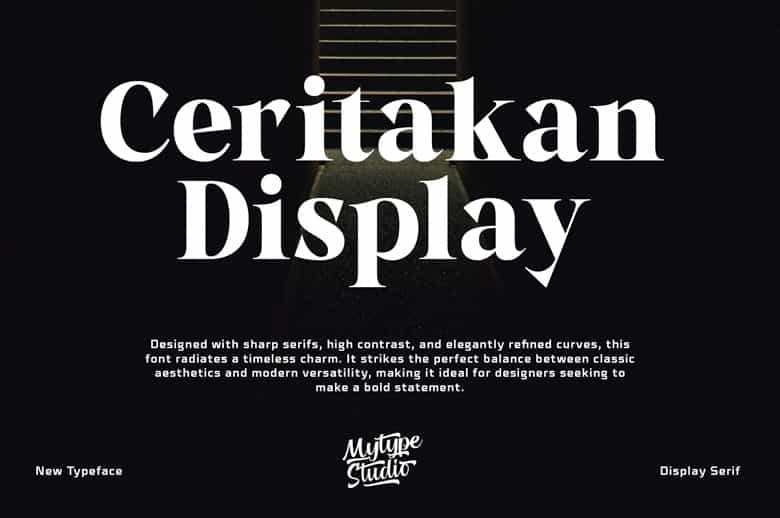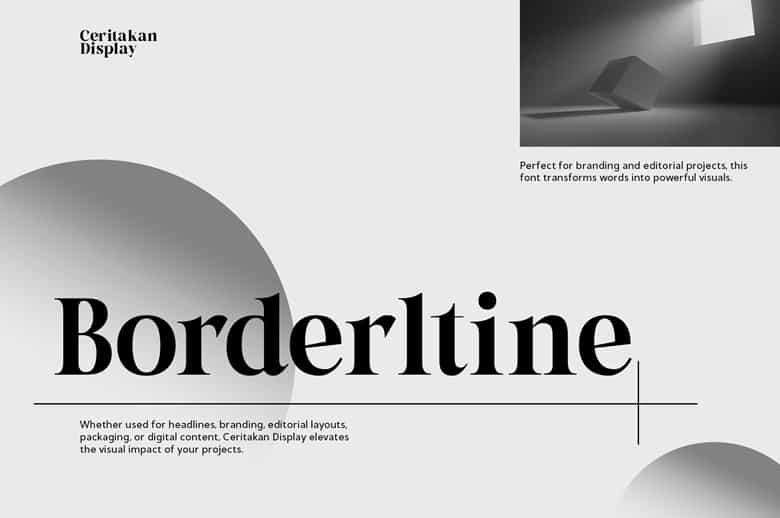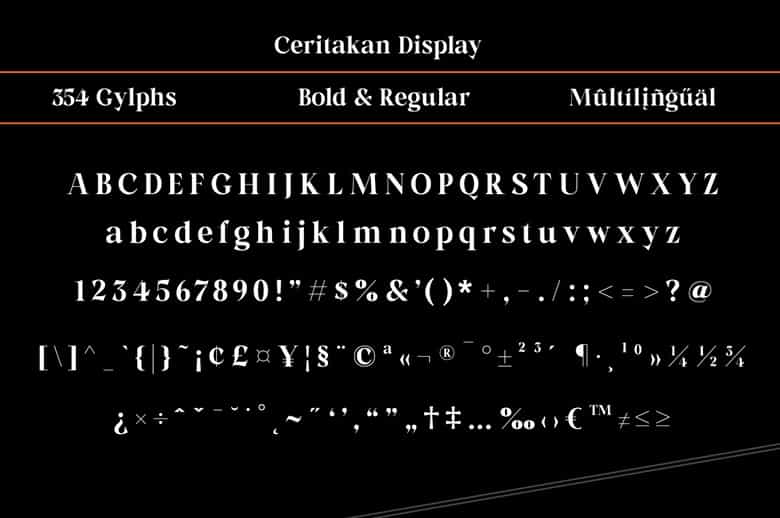
Ceritakan display is a visually appealing font classified as sharp-serif, high-contrast font underlined by fine curves to produce a contemporary and classical pull appearance. Such versatility makes it suitable for tasks requiring some class and aesthetic appeal on the surface. Suitable for corporate identity, newspaper, magazines and other business or formal use, this font is traditional but innovative at the same time.